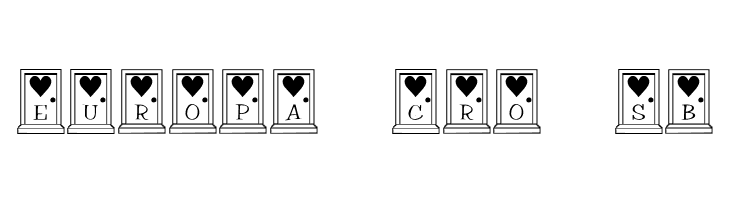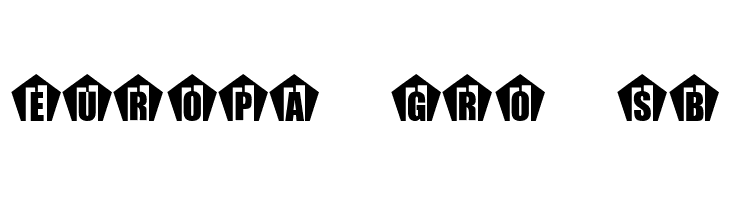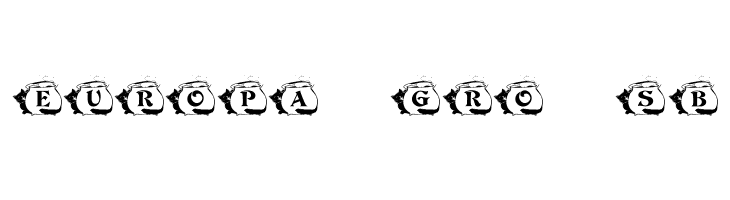
( Fonts by Kat`s Fun Fonts - Personal-use only. For commercial use please contact owner. ) A decorative font with whimsical teddy bear illustrations for each character. Download 120 Downloads@WebFont
( Fonts by Kat`s Fun Fonts - Personal-use only. For commercial use please contact owner. ) A decorative font with holly leaf embellishments on uppercase letters. Download 60 Downloads@WebFont
( Fonts by Kat`s Fun Fonts - Personal-use only. For commercial use please contact owner. ) A decorative font featuring holly leaf motifs for a festive, seasonal look. Download 95 Downloads@WebFont
( Fonts by Kat`s Fun Fonts - Personal-use only. For commercial use please contact owner. ) A decorative font with letters framed by windows and topped with heart symbols. Download 163 Downloads@WebFont
( Fonts by Kat`s Fun Fonts - Personal-use only. For commercial use please contact owner. ) A decorative serif font with letters in window frames topped by heart symbols. Download 234 Downloads@WebFont
( Fonts by Kat`s Fun Fonts - Personal-use only. For commercial use please contact owner. ) A bold, Western-style font with framed uppercase letters. Download 57 Downloads@WebFont
( Fonts by Kat`s Fun Fonts - Personal-use only. For commercial use please contact owner. ) A playful font with letters inside cartoon bee characters, perfect for fun projects. Download 169 Downloads@WebFont
( Fonts by Kat`s Fun Fonts - Personal-use only. For commercial use please contact owner. ) A playful font with letters inside cartoon bee characters, ideal for children's projects. Download 77 Downloads@WebFont
( Fonts by Kat`s Fun Fonts - Personal-use only. For commercial use please contact owner. ) A decorative script font adorned with wedding rings, ideal for romantic projects. Download 66 Downloads@WebFont
( Fonts by Kat`s Fun Fonts - Personal-use only. For commercial use please contact owner. ) A decorative script font with wedding ring and flower embellishments. Download 71 Downloads@WebFont
( Fonts by Kat`s Fun Fonts - Personal-use only. For commercial use please contact owner. ) A playful, cartoonish font with animated numbers full of personality. Download 79 Downloads@WebFont
( Fonts by Kat`s Fun Fonts - Personal-use only. For commercial use please contact owner. ) A bold, geometric font with pentagonal shapes and a modern style. Download 90 Downloads@WebFont
( Fonts by Kat`s Fun Fonts - Personal-use only. For commercial use please contact owner. ) A playful, spotlight-themed decorative font with bold, rounded characters. Download 57 Downloads@WebFont
( Fonts by Kat`s Fun Fonts - Personal-use only. For commercial use please contact owner. ) Irish-themed decorative dingbat font with playful illustrations. Download 153 Downloads@WebFont
( Fonts by Kat`s Fun Fonts - Personal-use only. For commercial use please contact owner. ) The image contains decorative illustrations, not a valid font. Download 50 Downloads@WebFont
( Fonts by Kat`s Fun Fonts - Personal-use only. For commercial use please contact owner. ) A decorative font with Irish-themed illustrations replacing characters. Download 104 Downloads@WebFont
( Fonts by Kat`s Fun Fonts - Personal-use only. For commercial use please contact owner. ) A whimsical collection of Irish-themed decorative symbols. Download 48 Downloads@WebFont
( Fonts by Kat`s Fun Fonts - Personal-use only. For commercial use please contact owner. ) A decorative font with Irish-themed symbols like shamrocks and leprechauns. Download 90 Downloads@WebFont
( Fonts by Kat`s Fun Fonts - Personal-use only. For commercial use please contact owner. ) A collection of St. Patrick's Day themed decorative symbols and illustrations. Download 52 Downloads@WebFont
( Fonts by Kat`s Fun Fonts - Personal-use only. For commercial use please contact owner. ) A decorative font with St. Patrick's Day-themed illustrations. Download 62 Downloads@WebFont
( Fonts by Kat`s Fun Fonts - Personal-use only. For commercial use please contact owner. ) The image contains St. Patrick's Day-themed graphics, not a font. Download 78 Downloads@WebFont
( Fonts by Kat`s Fun Fonts - Personal-use only. For commercial use please contact owner. ) A decorative collection of St. Patrick's Day-themed graphics. Download 53 Downloads@WebFont
( Fonts by Kat`s Fun Fonts - Personal-use only. For commercial use please contact owner. ) A playful, decorative font with letters inside cartoon potato characters. Download 57 Downloads@WebFont
( Fonts by Kat`s Fun Fonts - Personal-use only. For commercial use please contact owner. ) A playful, decorative font with letters emerging from jack-in-the-box toys. Download 226 Downloads@WebFont
( Fonts by Kat`s Fun Fonts - Personal-use only. For commercial use please contact owner. ) A playful font with letters emerging from jack-in-the-boxes, perfect for whimsical designs. Download 60 Downloads@WebFont
( Fonts by Kat`s Fun Fonts - Personal-use only. For commercial use please contact owner. ) A playful, decorative font with balloon and confetti motifs, perfect for festive projects. Download 68 Downloads@WebFont
( Fonts by Kat`s Fun Fonts - Personal-use only. For commercial use please contact owner. ) A playful, cartoon-like font with bold, dynamic letters and whimsical details. Download 76 Downloads@WebFont
( Fonts by Kat`s Fun Fonts - Personal-use only. For commercial use please contact owner. ) A playful, cartoonish font with bold letters and interactive hand illustrations. Download 141 Downloads@WebFont
( Kat's Fun Fonts - www.katsfunfonts.com/ ) A whimsical, cauldron-themed decorative font with a playful, magical style. Download 44 Downloads@WebFont